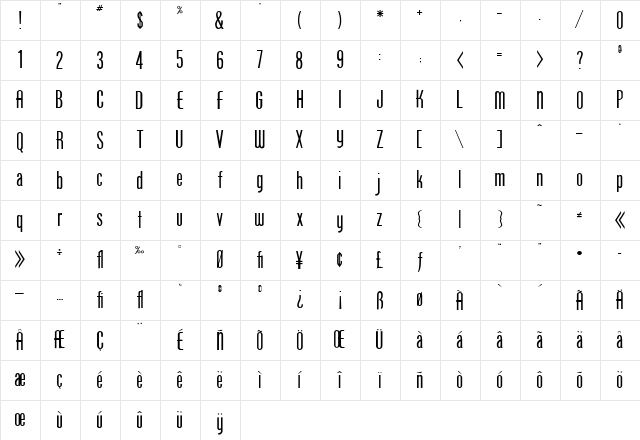
Phoenix Normal Free Font
Phoenix Normal
Phoenix Family
Phoenix Normal
Complete Phoenix Normal glyph index. Displaying only characters natively supported by Phoenix Normal font.
Design Context for Phoenix
Phoenix is a composed and adaptable typeface that performs quietly and consistently across a wide range of design contexts.
Pro Tip: Use Phoenix in both headline and body roles to test its range before committing to a single application.